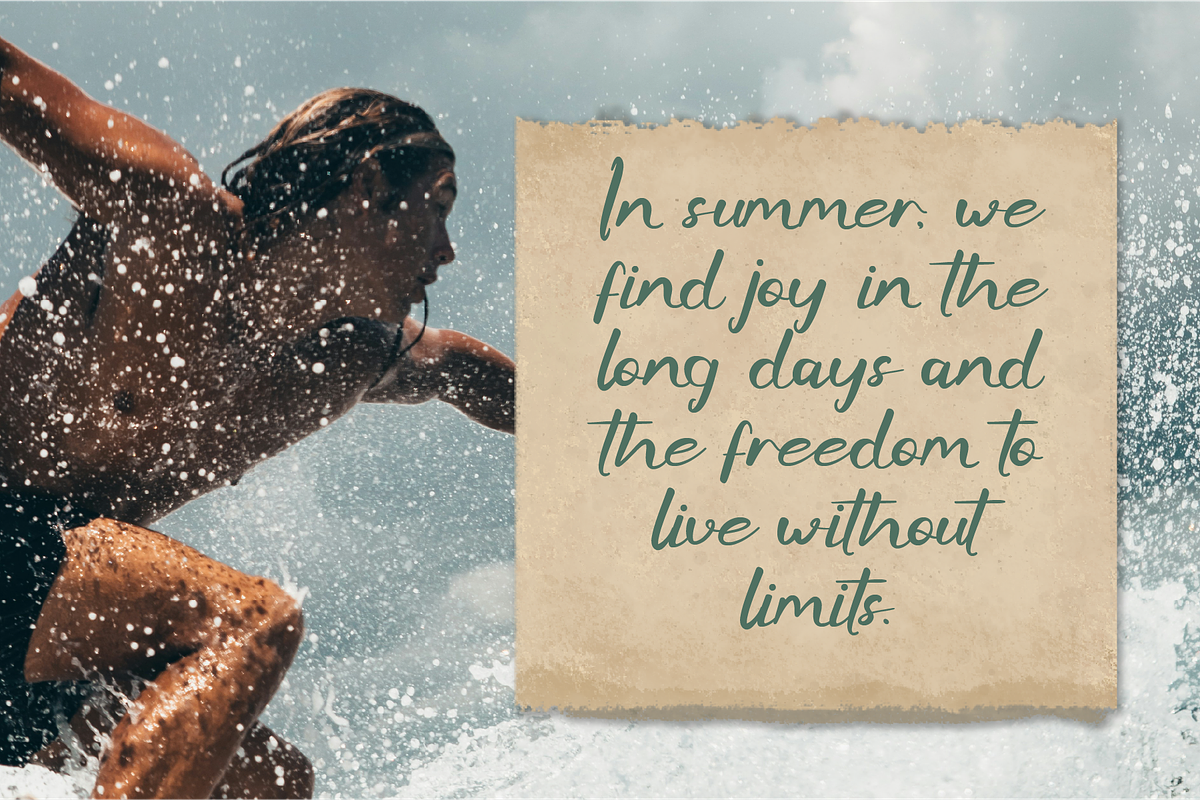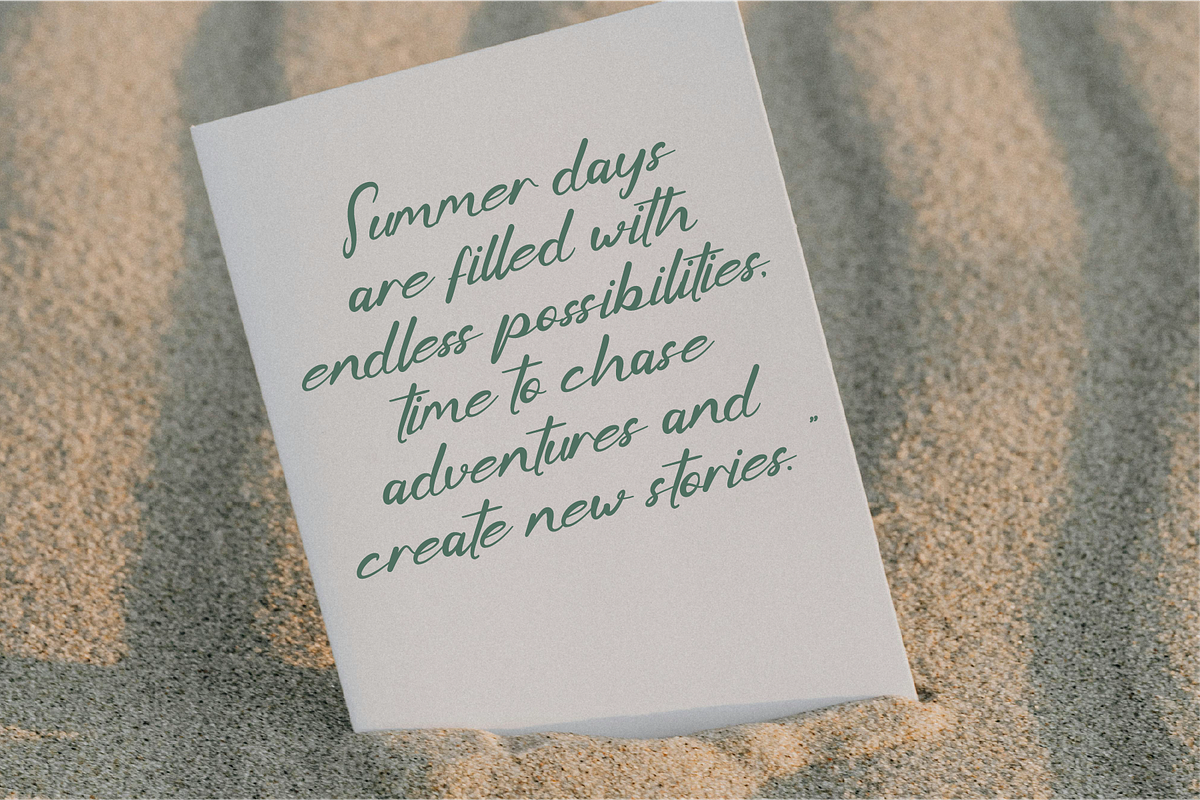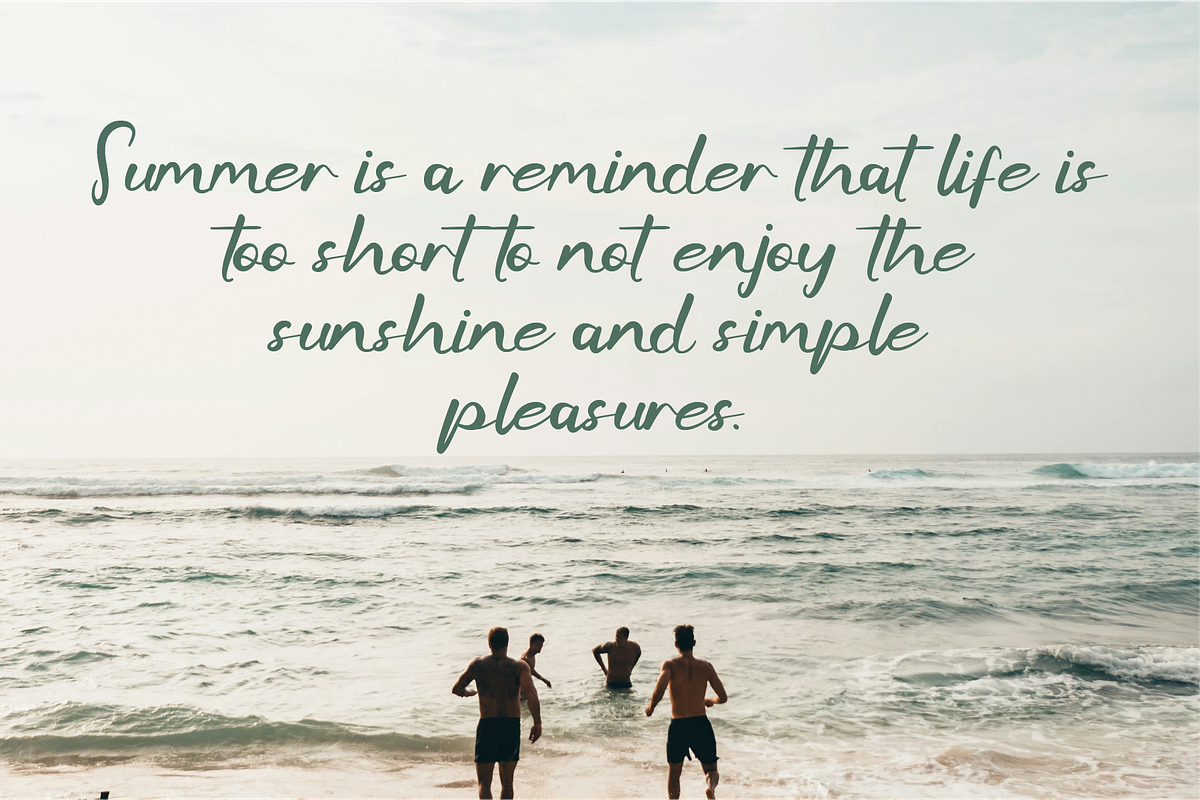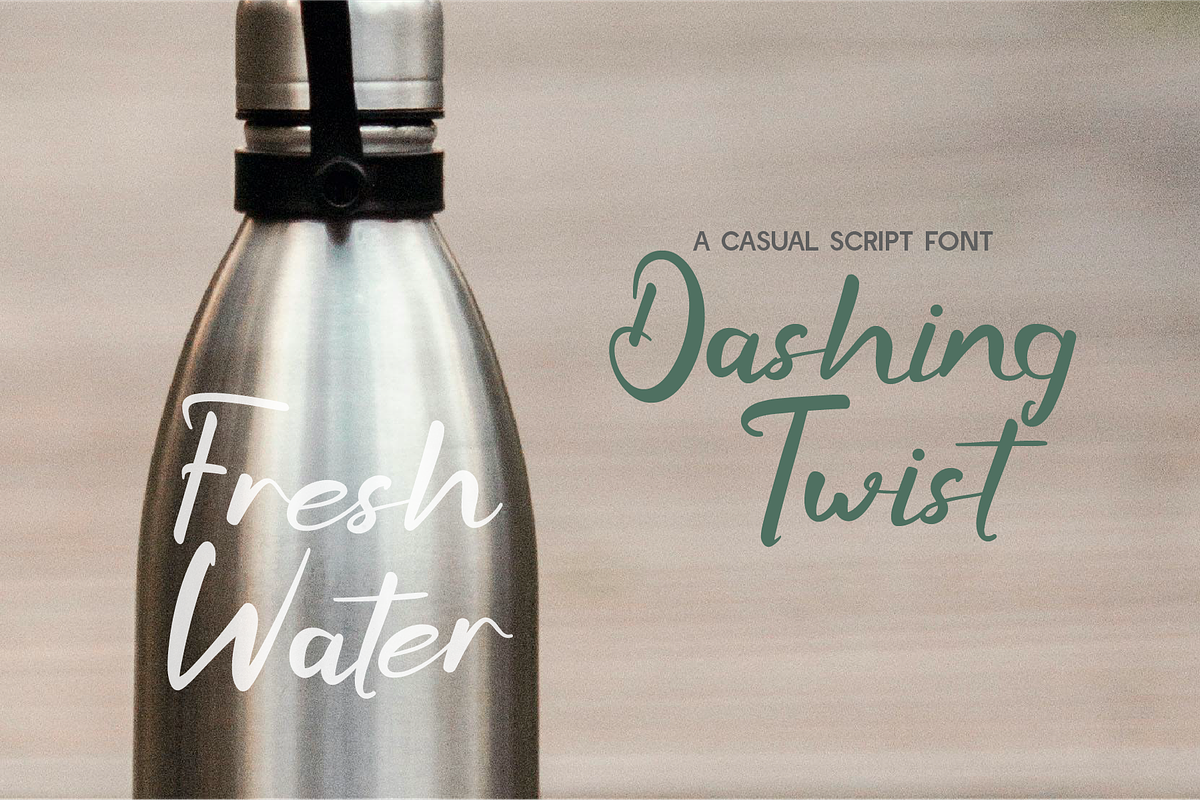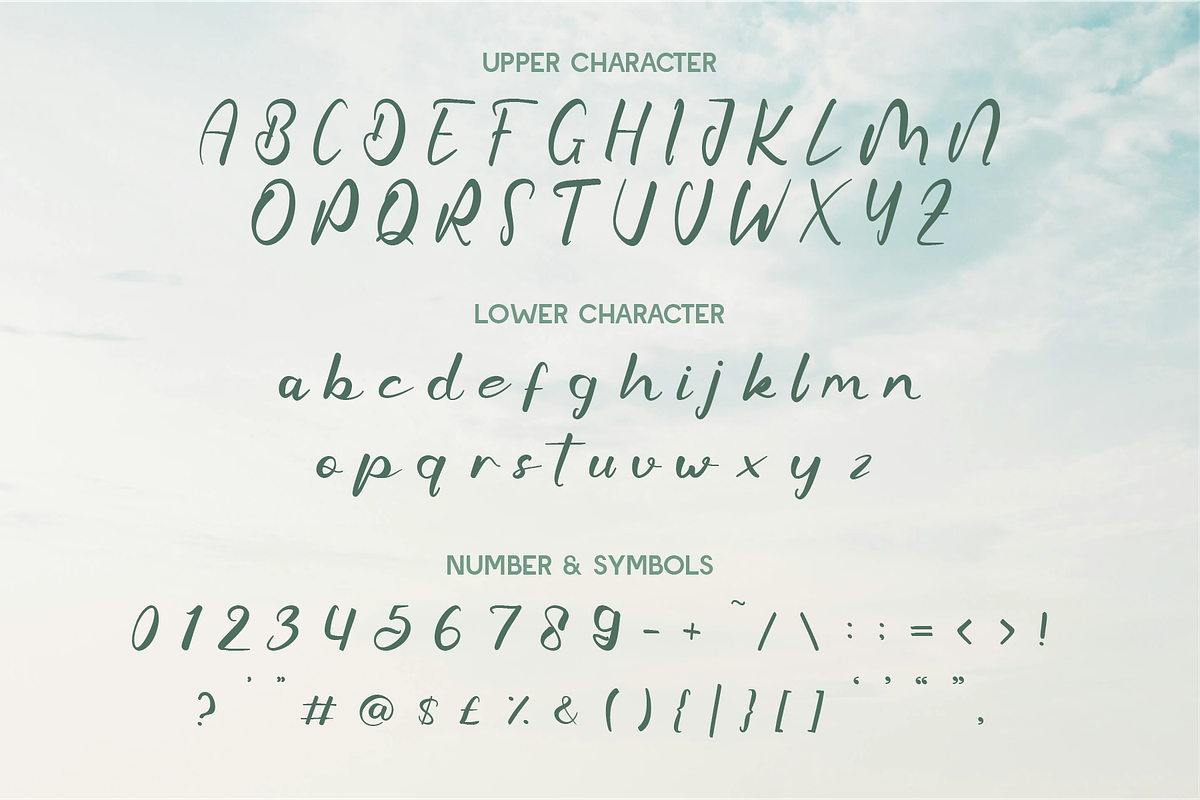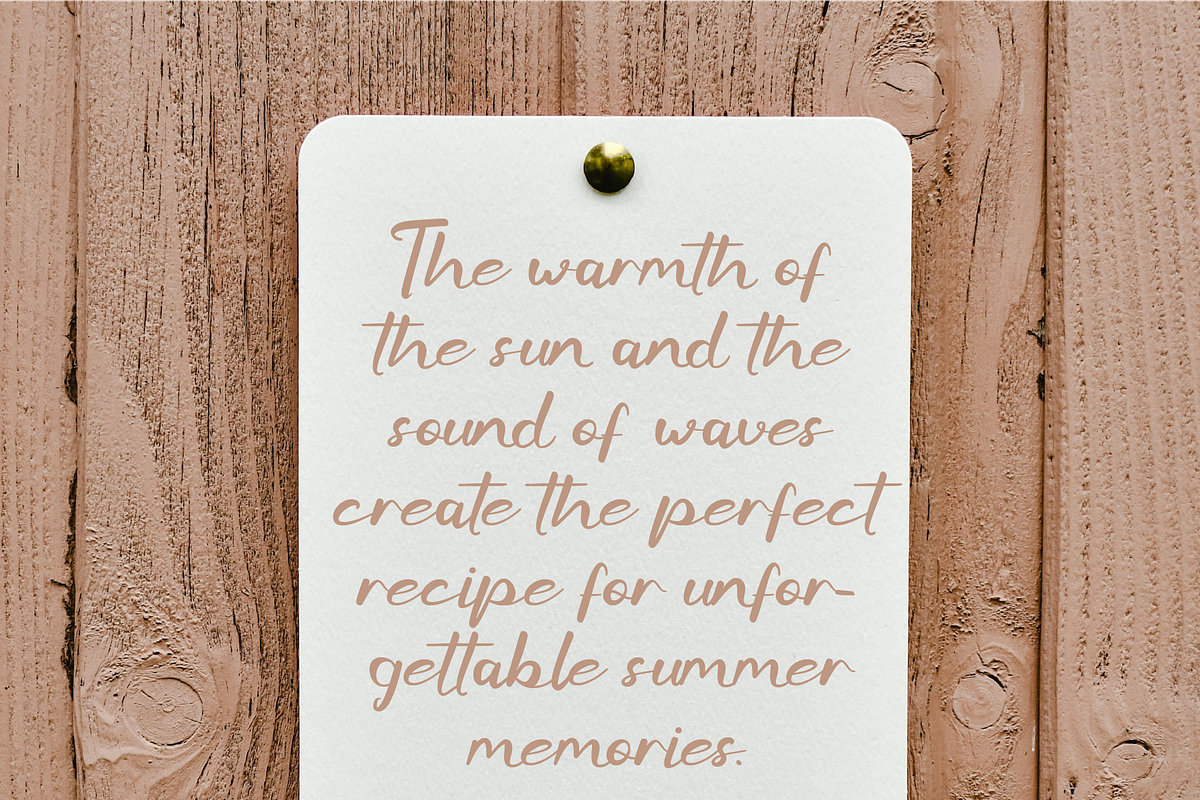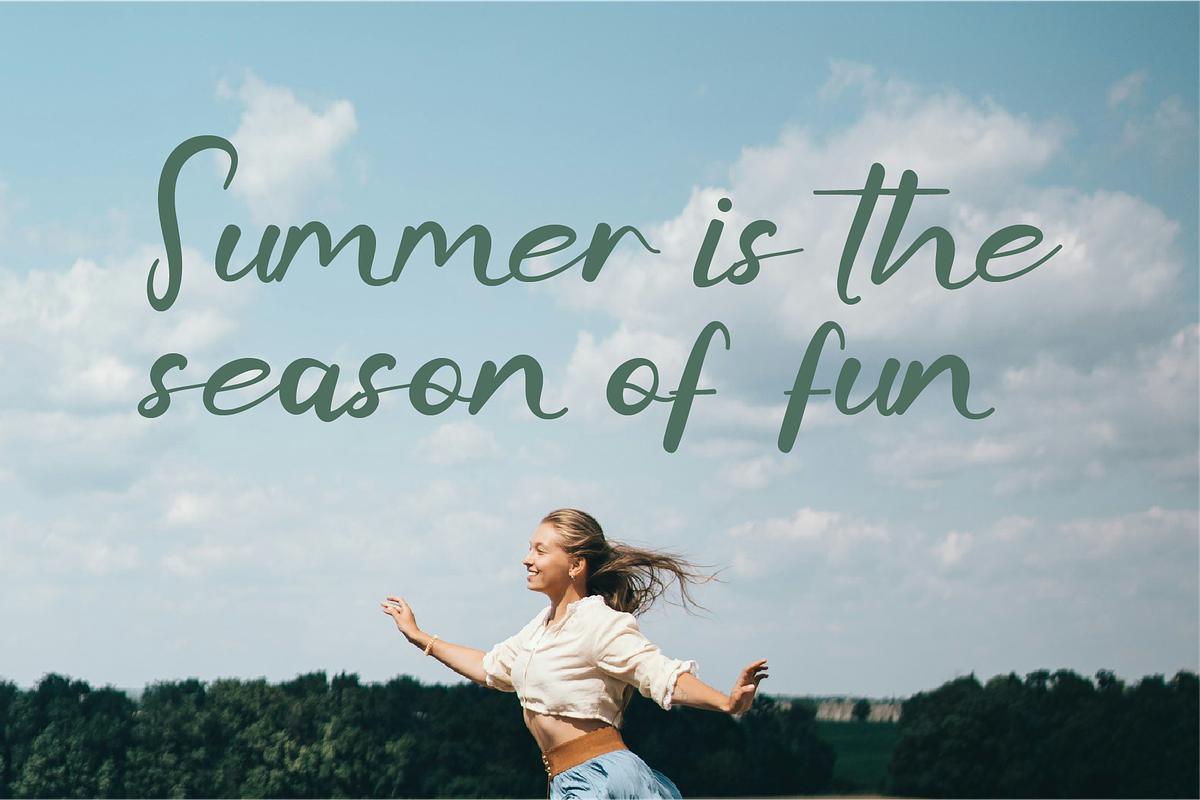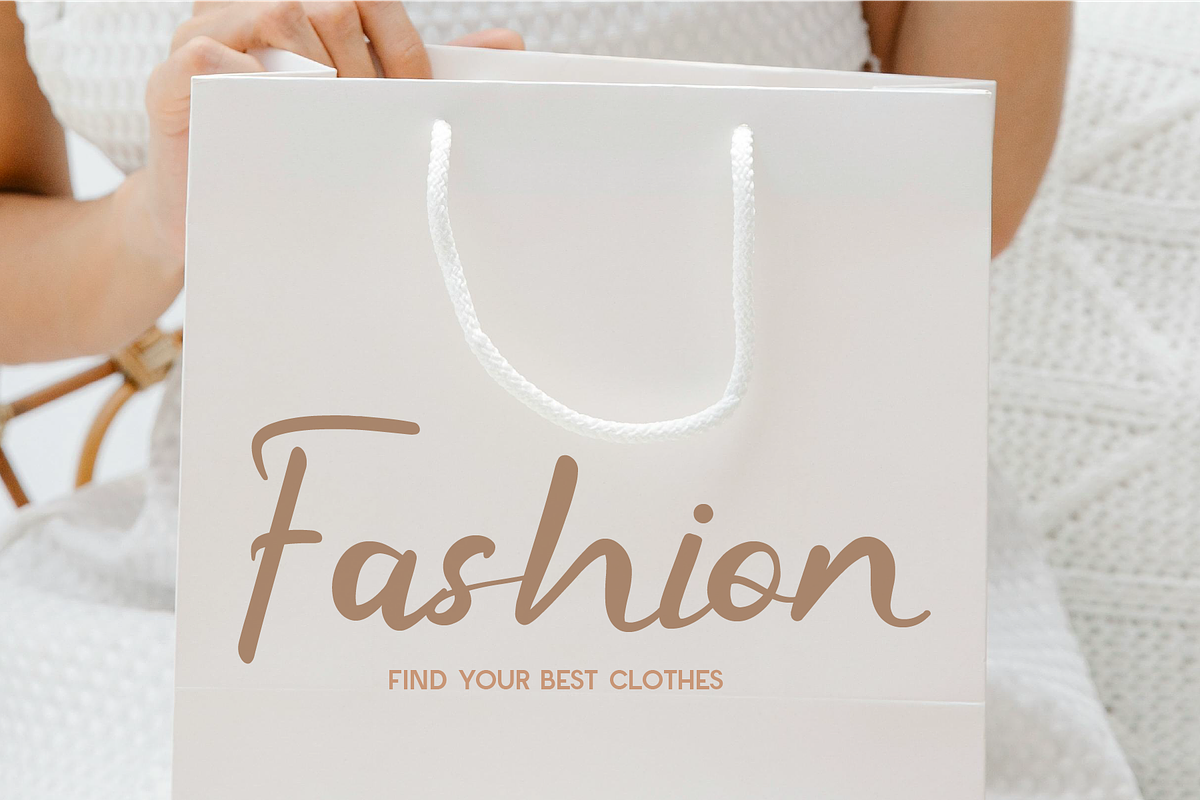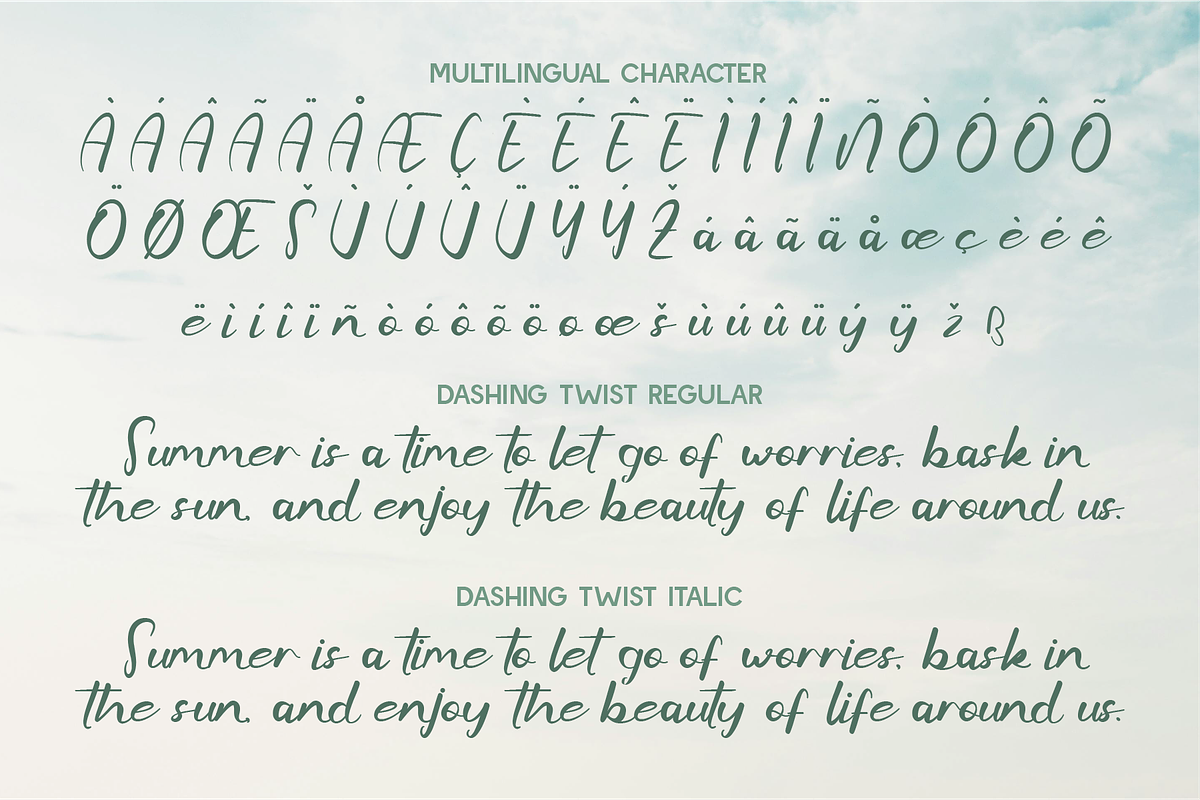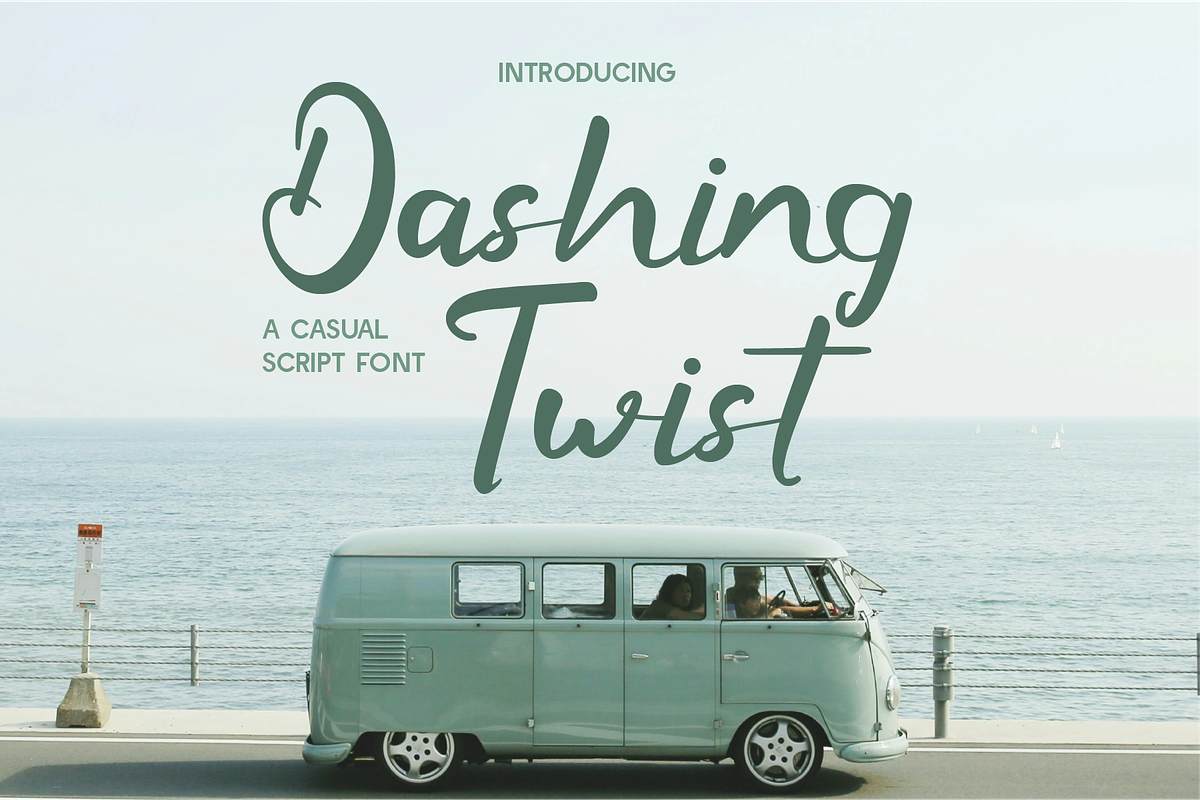
Dashing Twist - Modern Script
Dashing Twist is a casual script font that perfectly embodies a relaxed yet stylish vibe. Its smooth and lively strokes bring energy and personality to your designs, making it an excellent choice for travel blogs, lifestyle branding, greeting cards, or social media content. With its approachable charm and carefree spirit, Dashing Twist adds a touch of whimsy and individuality to your creative projects. Whether you're aiming for a laid-back or cheerful aesthetic, this font delivers effortless versatility and warmth.
- Standard Character A-Z, a-z, 0-9, Punctuation & symbols
- Regular and Italic